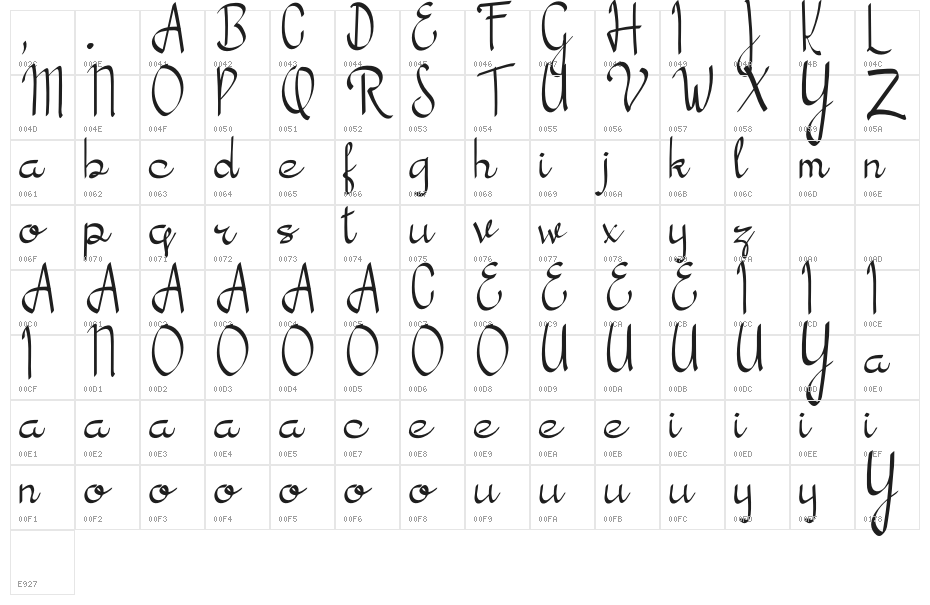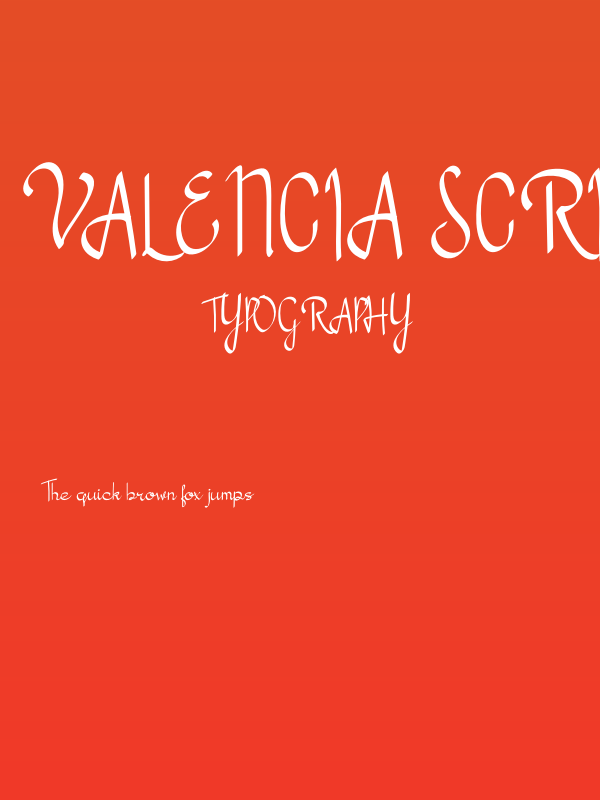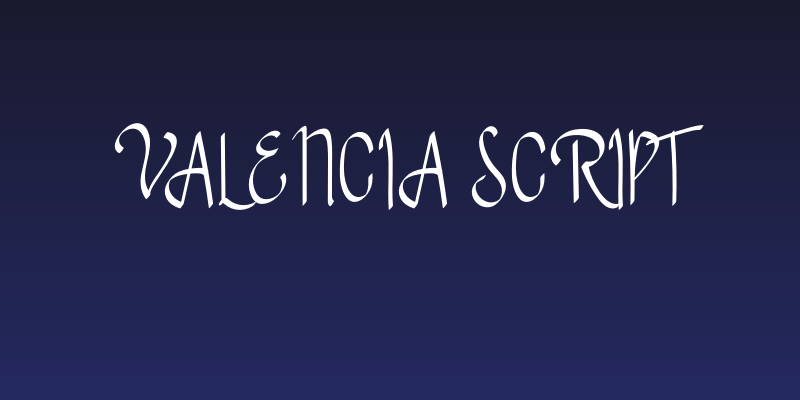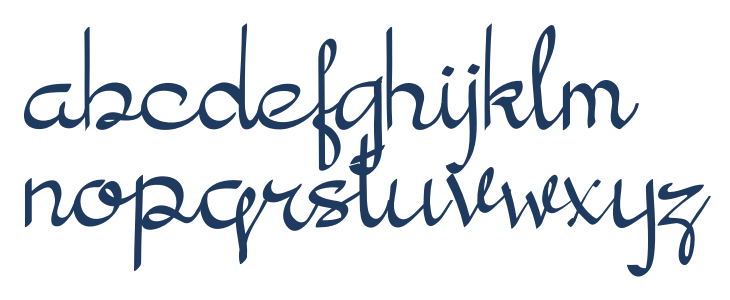
Valencia Script Font
Valencia Script Description
This elegant script font features a flowing, handwritten style with a modern twist. The uppercase letters are characterized by their tall, slender forms and graceful curves, while the lowercase letters maintain a consistent fluidity and connectedness. The font's strokes vary in thickness, adding a dynamic and lively feel to the text. The overall design is sophisticated and artistic, making it ideal for creative projects that require a touch of elegance and personality.
| Proposed Projects | Ideal for wedding invitations, greeting cards, branding, and logo design where a personal and artistic touch is desired. |